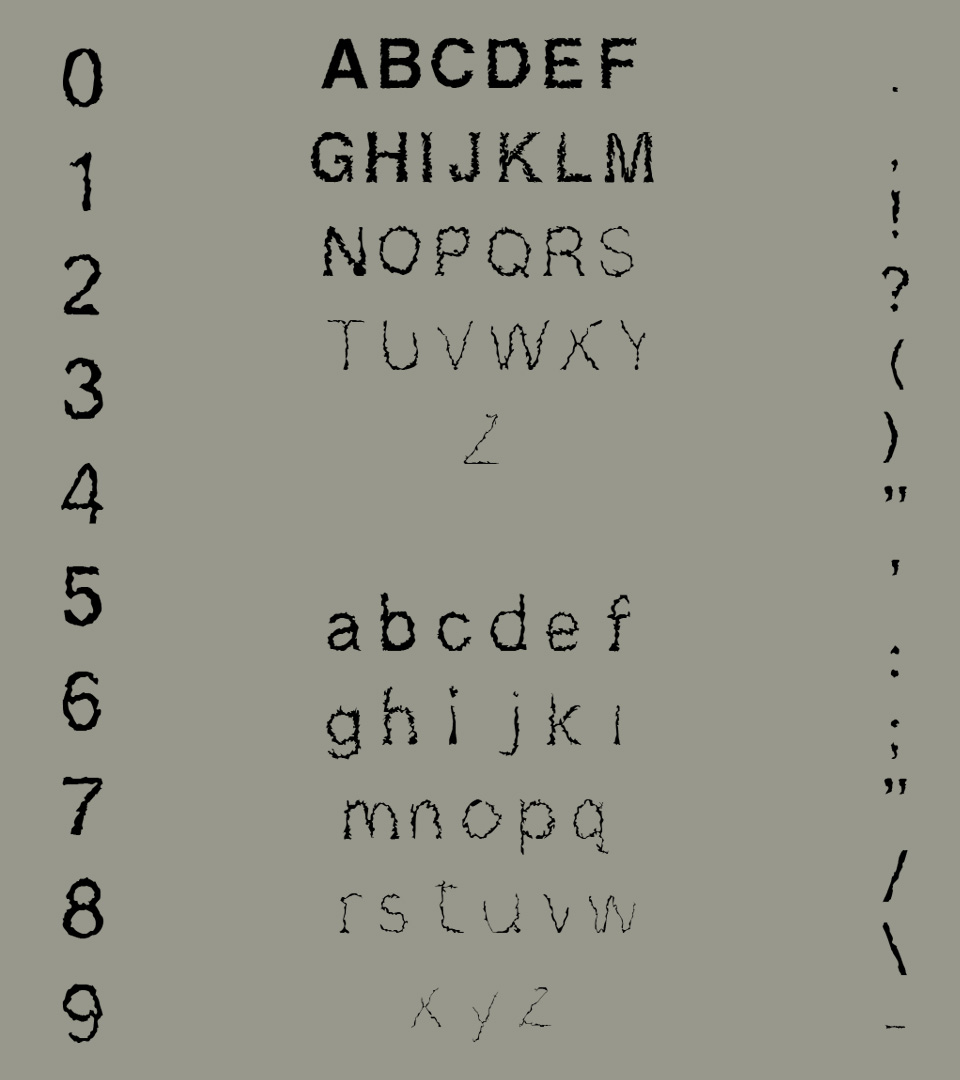
Decay, inspired by the St Giles church, decay showcases the power of time and decay through the chipping away and deterioration of the letters, just like the architecture of and around the church. The forms are inspired by the slow processes of time, erosion, and decay, capturing the way carved surfaces soften, fracture, and transform over time. In its strongest and weakest forms, the typeface showcases that no matter how long it has been or what the damage is, the church and its surrounding architecure stand tall, showcasing the endurance, deterioration, and memory of the site.